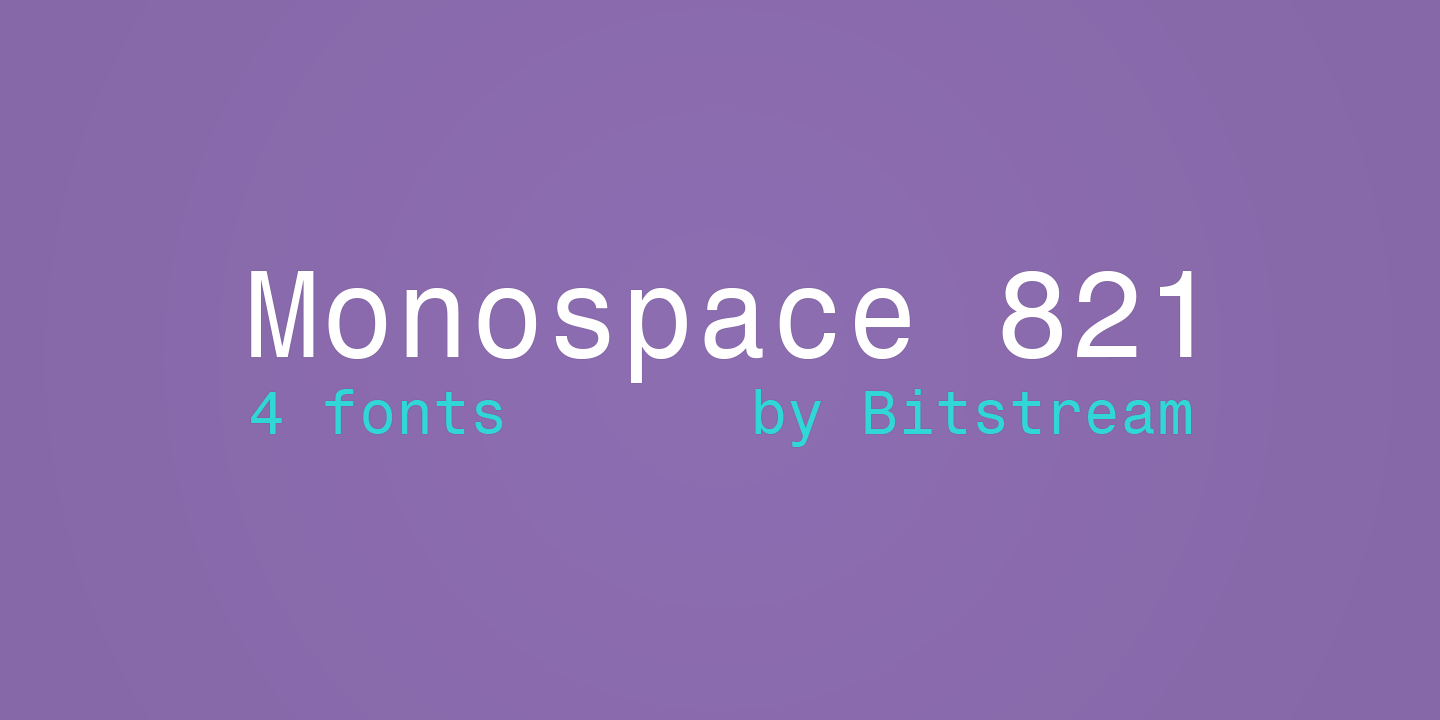
The Monospace 821 Font is perfect for programming code editors, software development interfaces, terminal applications, data tables, technical documentation, cybersecurity presentations, retro gaming designs, and digital art projects. This functional typeface excels in projects for software companies, tech startups, coding bootcamps, cybersecurity firms, data analysis platforms, and businesses requiring precise character alignment, technical accuracy, and nostalgic computing aesthetics.
What makes the Monospace 821 Font exciting is its perfect balance of technical precision and vintage computing charm. The font features uniformly-spaced characters with crisp, geometric letterforms that ensure perfect alignment in code and data applications while maintaining excellent readability. Its retro-futuristic character and computing heritage make it ideal for projects celebrating programming culture, digital innovation, and tech nostalgia. The font's systematic design and technical reliability create trust and efficiency in development environments.
The Monospace 821 Font family includes coding-optimized variations: Light, Regular, Medium, Bold, and Heavy weights. Each style maintains consistent character width while offering different visual densities for complex programming interfaces and technical hierarchies. The family also features extended ASCII characters, programming symbols, mathematical operators, and specialized glyphs essential for professional software development and technical documentation.